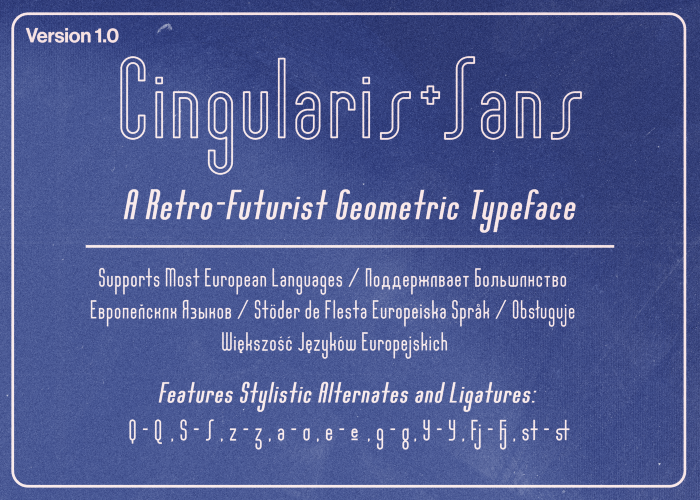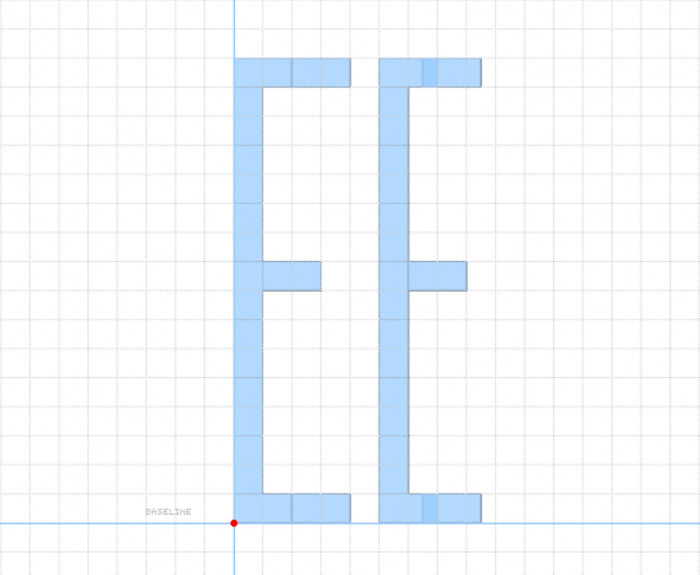
Very solid looking sans
Another "eye" in the block! Welcome back. I like this curvy Z, but I think the E, F and L are a bit wide, optically talking. Great set otherwise.
@elmoyenique Thank you so much for your support and feedback! :) How much would you recommend I slim down those characters?
Beautiful font. But there are a couple of problems in Cyrillic. И and й should be turned upside down, they should be with a sharp end at the bottom right. You made д with a rounded cap, but л with a straight one, you need to make them the same (л also with a rounded one). Э with an open aperture in capital letters, although З С with a closed one, should be the same. M in Cyrillic is not the same as in Latin, it should be symmetrical, you can make the line in the middle shorter.
Something like this could be enough, it is my recommendation but I leave it to your good judgment.
Why is the Z is cursive?